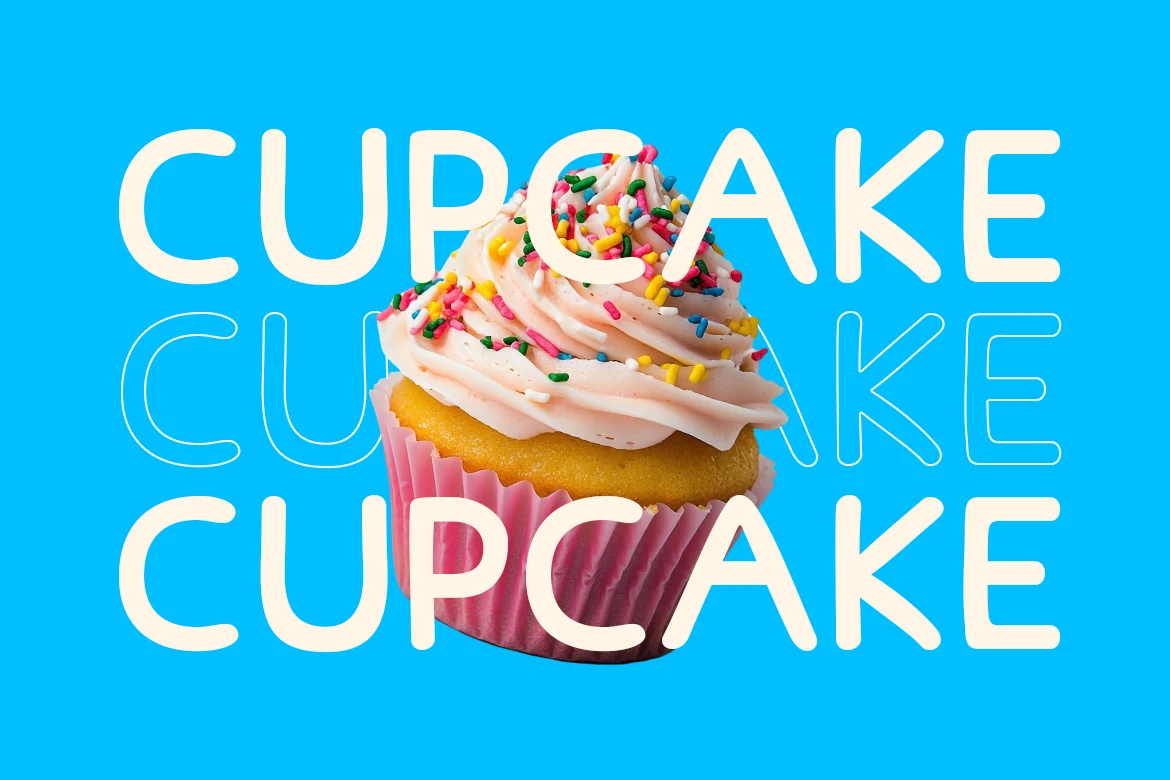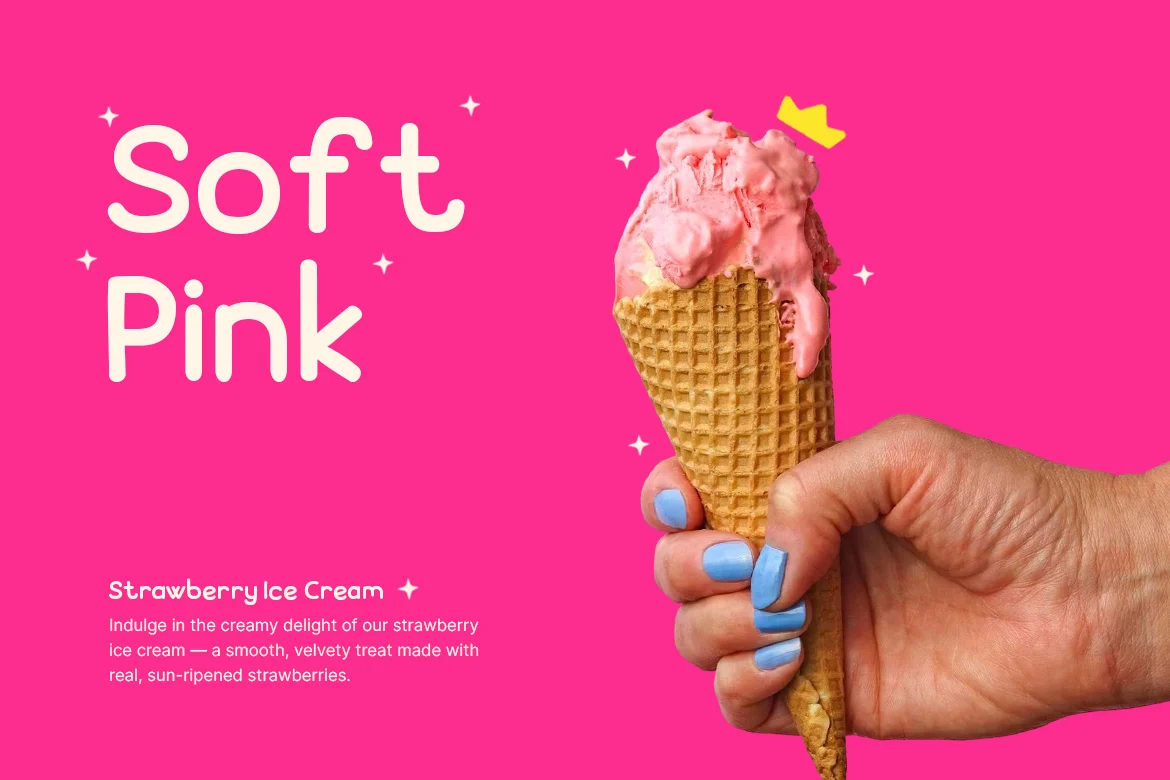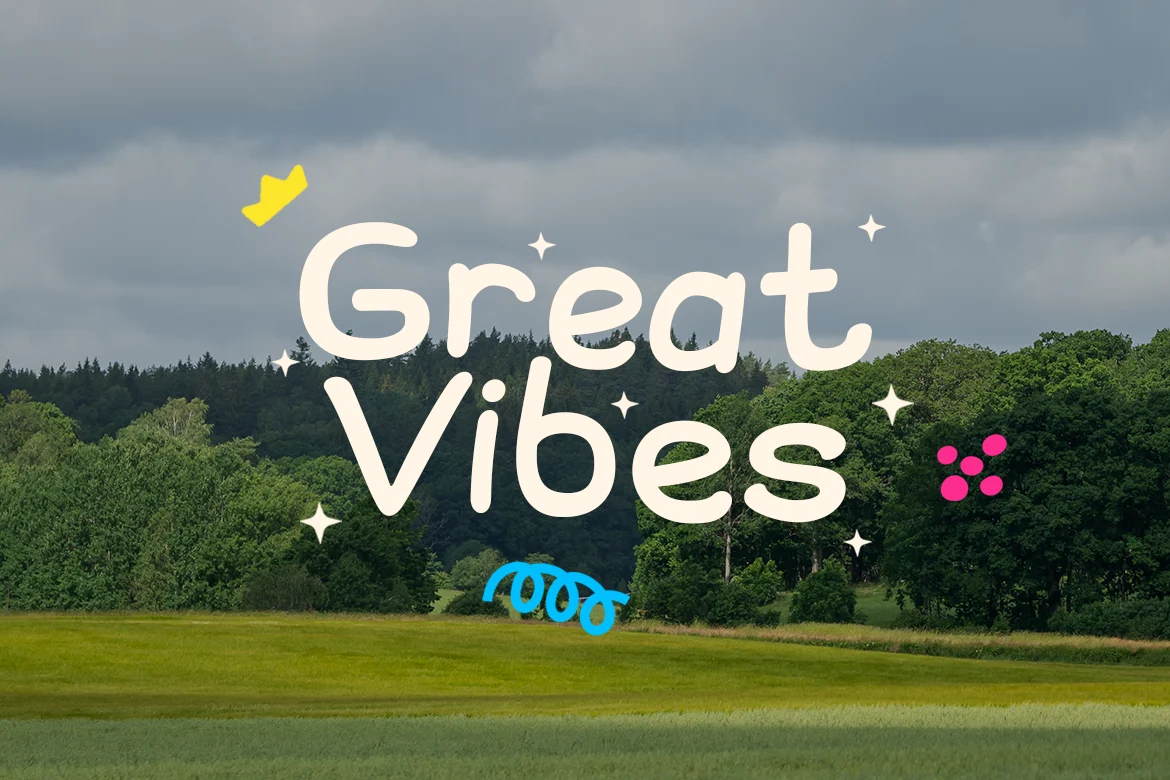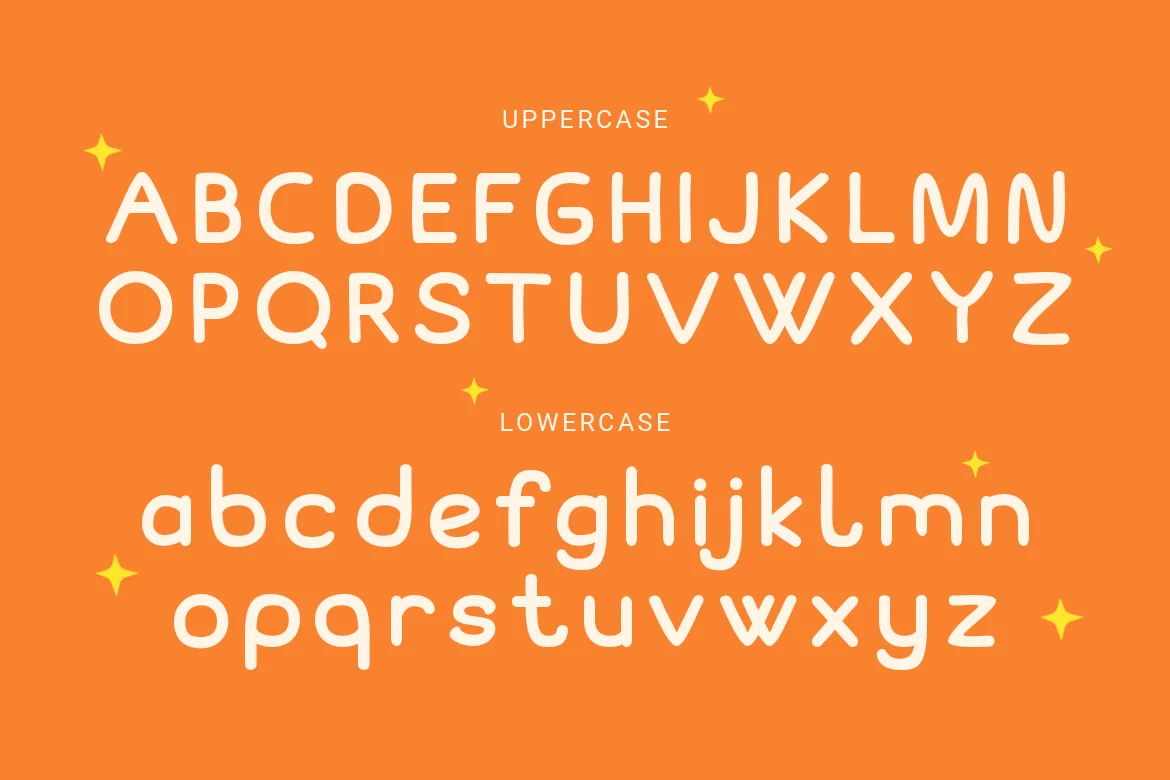
Glooma Creative Display Font
Glooma is a cheerful rounded display font featuring smooth monoline strokes, playful proportions, and friendly geometric forms. Includes uppercase, lowercase, numerals, punctuation, and multilingual support, designed for vibrant branding and expressive visual projects. Its soft bubbly structure creates a cute modern personality perfect for eye-catching typography across digital and print applications. Font files included only; preview mockups are for presentation purposes and not included.
Relevance and Use Cases is perfect for children branding, toy packaging, cute product labels, playful social media graphics, educational materials, cheerful logo projects, posters, book covers, mobile app interfaces, and creative marketing visuals with fun personality. Suitable for kids brands, toy packaging, children books, educational graphics, playful logos, mobile apps, social content, product labels, event invitations, and cheerful promotional designs that need soft expressive typography.